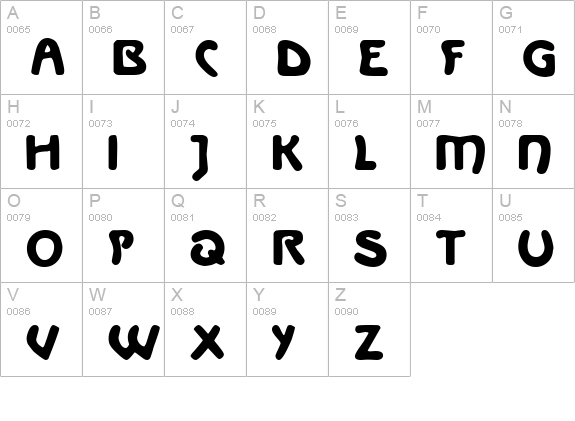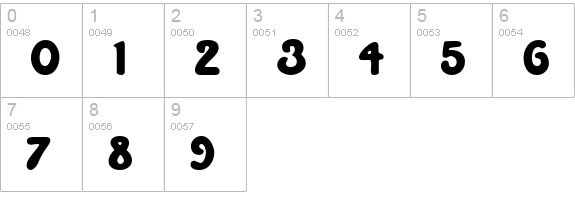
La Negrita Font Details
La Negrita font is a wonderfully bold and eye-catching typeface that exudes confidence and personality. With its strong and sturdy letterforms, this font commands attention and makes a powerful statement in any design project. Designed with utmost care and attention to detail, La Negrita font offers a perfect balance between elegance and strength. Its thick strokes and rounded edges give it a unique and modern appeal, making it suitable for a wide range of applications, from headlines and posters to logos and branding materials. What makes La Negrita font even more appealing is that it is freely available to download at FontsMarket.com. This means that you can easily access and use this remarkable font in your design projects without any restrictions. Whether you are a professional designer or a creative enthusiast, having access to this font for free opens up endless possibilities for creating stunning and impactful designs. With La Negrita font, you can effortlessly create captivating typography that captures the essence of your message. Its versatility allows it to adapt to various design styles, from minimalist and clean to bold and vibrant. Whether you are looking to create a striking poster, an attention-grabbing logo, or an engaging website, La Negrita font will undoubtedly elevate your design to new heights. So why wait? Take advantage of this incredible opportunity to download La Negrita font for free at FontsMarket.com and unlock the full potential of your creative projects. With its bold and distinctive personality, this font will undoubtedly leave a lasting impression and make your designs truly stand out from the crowd.